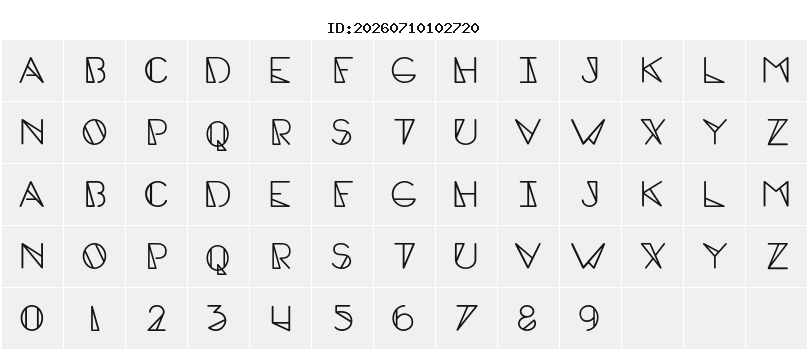
• Font Name: Edge Caps
• Designer: Anastasia Fekete
About Edge Caps.otf
Edge Caps.otf is a modern, elegant sans-serif font designed for ultimate readability and visual harmony. Perfect for branding, headlines, web design, and print materials.